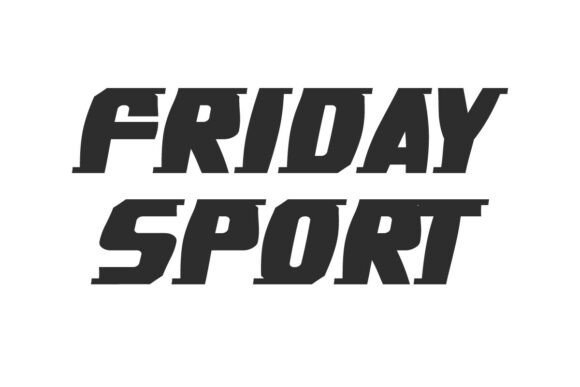
The Perfect Font for the Finish Line: Unleashing the Power of Friday Sport Font
There’s nothing quite like the rush of adrenaline as you’re about to launch your latest design project. The blank canvas stares back at you, waiting for the perfect font to bring your vision to life. And that’s when you remember it – the Friday Sport Font, engineered for speed, power, and athletic excellence.
This high-octane display typeface is designed to grab attention and convey momentum, making it a top choice for designers looking to create a lasting impact. With its aggressive, slanted letterforms and bold weight, the Friday Sport Font is perfect for gym banners, sports jerseys, and automotive branding. Whether you’re working on an e-sports logo or a fitness app, this font is sure to deliver the varsity-level impact your project deserves.
Friday Sport Font Key Features
- Unique Characteristics: The font features a unique, bold, and sporty design, with a mix of modern and vintage elements, making it perfect for sports-themed projects and branding.
- Weight and Style: The font comes in multiple weights and styles, including Regular, Bold, Italic, and Bold Italic, allowing designers to choose the perfect look for their project.
Designer Review: Friday Sport Font
I was excited to dive into the Friday Sport Font, but my experience was a mixed bag. ✨ On the plus side, the font’s energetic and playful vibe really shines through. It’s perfect for sports-themed projects or anything that needs a fun, laid-back feel.
- Wide range of weights and styles: From light to bold, the font offers plenty of options to suit different design needs.
- Excellent legibility: The font is easy to read, even at smaller sizes, which is a must for any font.
However, there are some limitations ⚠️ that held me back from giving the font a full thumbs-up. The font’s design can come across as a bit childish at times, and it may not be suitable for more formal or professional projects.
- Lack of sophistication: While the font is great for casual designs, it may not have the same level of polish as more refined fonts.
- Not ideal for small text: The font’s playful nature can make it difficult to read in small sizes, which may limit its use in certain contexts.
Overall, I’d say the Friday Sport Font is a solid choice for designers who want to add some fun and energy to their projects. While it may not be the best fit for every design, it’s definitely worth considering for sports-themed or casual projects.
Tips for Getting the Most Out of “Friday Sport Font”
Use “Friday Sport Font” for sports-themed designs, such as posters, flyers, and social media graphics.
Combine “Friday Sport Font” with bold, bright colors to create eye-catching designs.
Experiment with different font sizes and arrangements to add visual interest to your designs.